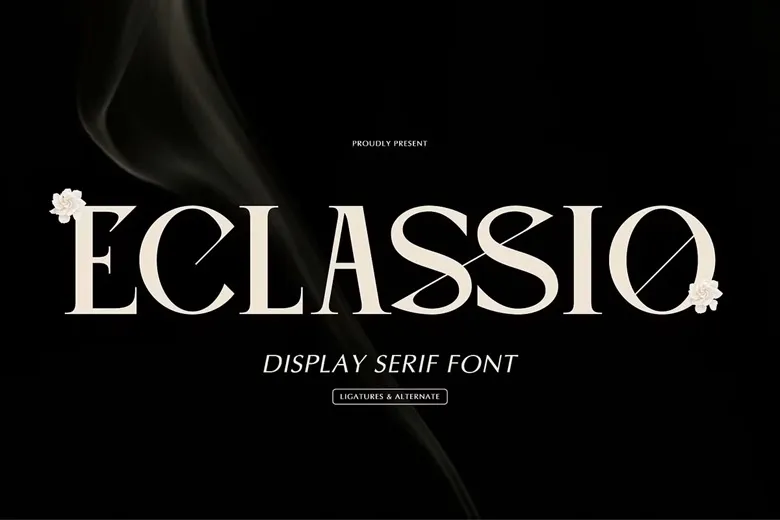
Eclassio font is an elegant serif typeface, from Gracetypestudio, suitable for any projects such as: logos, branding projects, homeware designs, product packaging, mugs, quotes, posters, shopping bags, t-shirts, book covers, name card, invitation cards, greeting cards, label, special events, and all your other lovely projects.